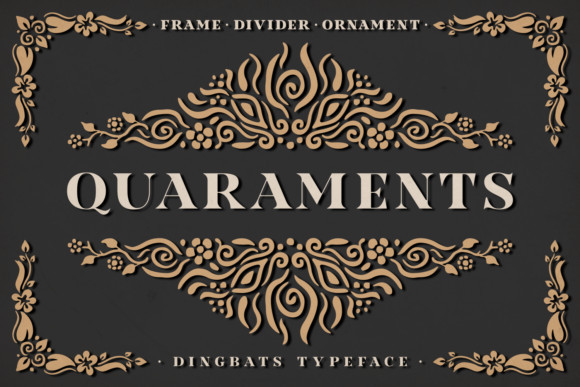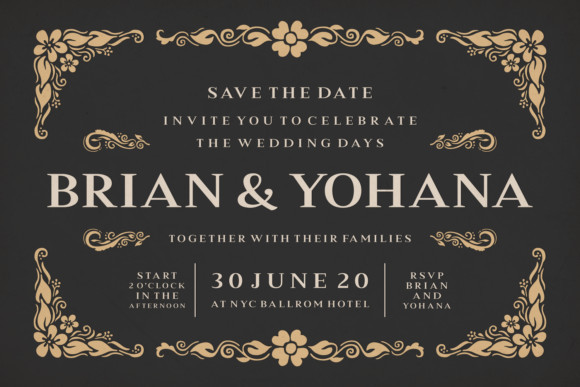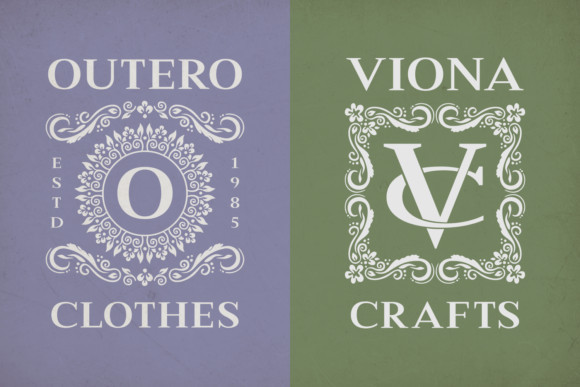
Quaraments Font
Quaraments is an incredibly unique and beautiful dingbats font. It features beautiful styles that will take your crafting projects to the next level!